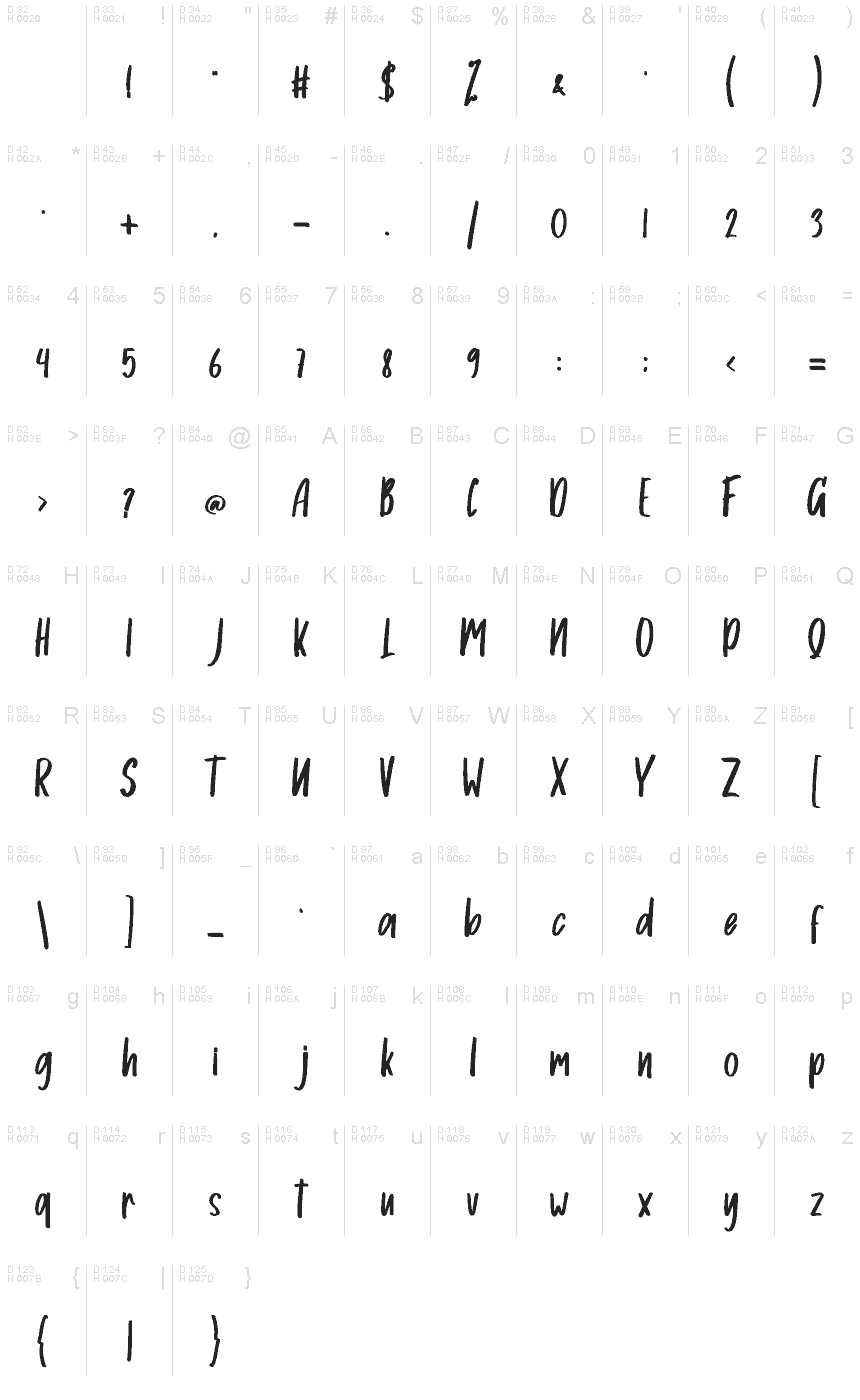
Yulmya
The Yulmya free font will give your projects a very peculiar look. It is quite charming and it comes from the makers at Skiiller Studio. This font brings a lot to the table because it can be used in a wide variety of designs.
It’s perfect for apparel and textile designers for branding logos, labels, and quotes but it also works great for packaging designs. Furthermore, the Yulmya handwritten font can be used for flyers and banners, websites, web pages, posts, social media platforms, etc.